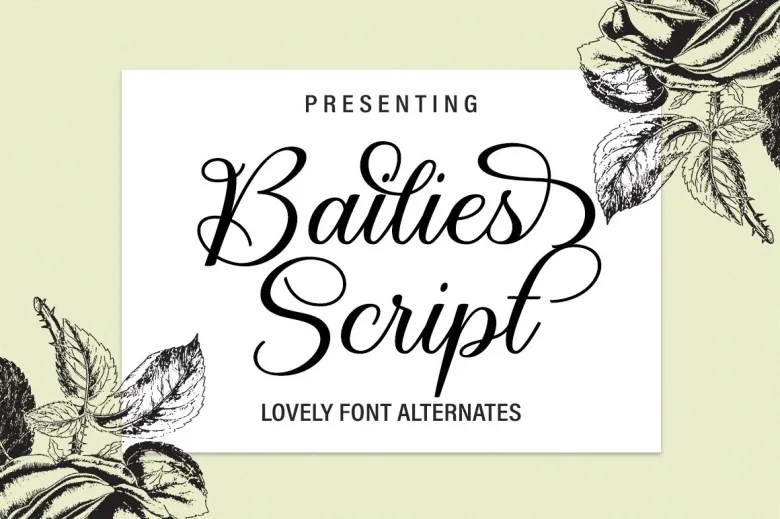
Bailies Script Font
Bailies Script is an elegant and beautifully crafted calligraphy font designed to bring a touch of sophistication to any project. With its flowing strokes and delicate curves, this font creates an undulating flow that is both graceful and eye-catching. The intricate details and subtle flourishes add an air of refinement, making Bailies Script an ideal choice for projects that require a luxurious and polished look.
Key Features of Bailies Script:
• Elegant Calligraphy Design: Bailies Script boasts a refined and graceful appearance, with fluid strokes that enhance its overall elegance. The font’s delicate curves and intricate details make it perfect for projects that require a touch of sophistication.
• Versatile Usage: Ideal for invitations, branding projects, wedding designs, greeting cards, and more. Bailies Script adds a luxurious and elegant touch to any creative endeavor.
Ideal Uses:
• Invitations: Create stunning wedding or event invitations that leave a lasting impression.
• Branding Projects: Enhance your brand’s identity with a font that exudes elegance and sophistication.
• Greeting Cards: Design beautiful and heartfelt greeting cards with a calligraphy style that conveys warmth and grace.
• Logos and Signatures: Perfect for adding a personal and refined touch to logos, signatures, and other branding elements.